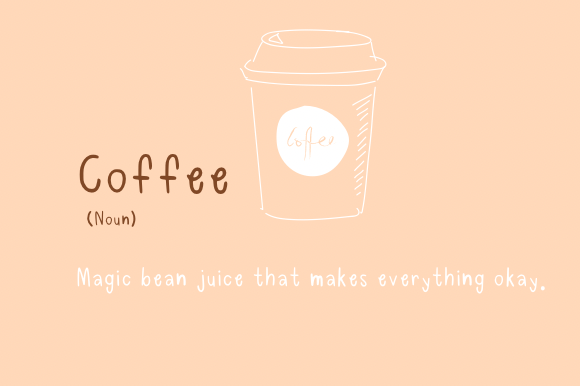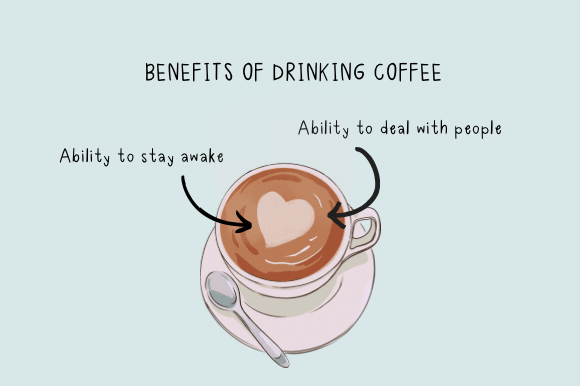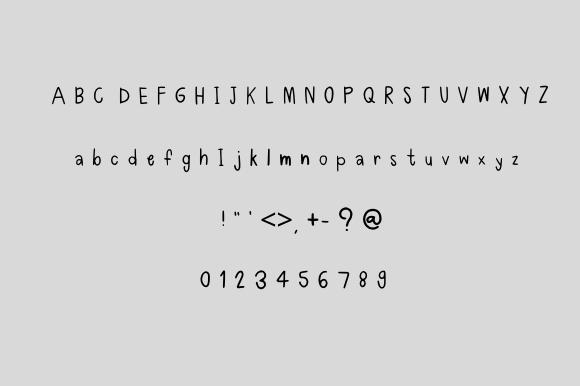
Coffee Lover Font: The Perfect Companion for Designers and Crafters
Are you a coffee lover, a designer, or a crafter looking for a font that can add a personal touch to your projects? Look no further than the Coffee Lover Font! This adorable handwritten font is perfect for a wide range of applications, from crafts and digital design to presentations and greeting cards. In this article, we’ll dive into the world of Coffee Lover Font and explore its features, benefits, and uses.
What is Coffee Lover Font?
Coffee Lover Font is a cute and friendly handwritten font designed to bring a touch of warmth and personality to your projects. Its playful and approachable style makes it perfect for designers, crafters, and anyone looking to add a personal touch to their work. Whether you’re creating a digital design, a handmade craft, or a presentation, Coffee Lover Font is sure to become your go-to font.
Features of Coffee Lover Font
Coffee Lover Font boasts a range of features that make it an excellent choice for designers and crafters. Some of its key features include:
- Handwritten style: Coffee Lover Font has a beautiful, handwritten style that’s perfect for adding a personal touch to your projects.
- Cute and friendly: The font’s playful and approachable style makes it perfect for a wide range of applications, from crafts to digital design.
- Versatile: Coffee Lover Font can be used for a variety of projects, including crafts, digital design, presentations, and greeting cards.
- Easy to read: The font is clear and easy to read, making it perfect for use in body text or headings.
Benefits of Using Coffee Lover Font
So why should you choose Coffee Lover Font for your next project? Here are just a few benefits of using this amazing font:
- Adds a personal touch: Coffee Lover Font’s handwritten style adds a personal touch to your projects, making them stand out from the crowd.
- Increases engagement: The font’s playful and approachable style can help increase engagement with your audience, whether you’re creating a digital design or a handmade craft.
- Versatile: Coffee Lover Font can be used for a wide range of applications, making it a great addition to your font library.
Uses for Coffee Lover Font
Coffee Lover Font is a versatile font that can be used for a wide range of applications. Here are just a few ideas to get you started:
- Crafts: Use Coffee Lover Font to add a personal touch to your handmade crafts, such as scrapbooking, card making, and journaling.
- Digital design: The font is perfect for use in digital design, including social media graphics, blog posts, and website headers.
- Presentations: Add a touch of personality to your presentations with Coffee Lover Font, perfect for use in titles, headings, and body text.
- Greeting cards: Use Coffee Lover Font to create beautiful, handmade greeting cards for any occasion.
Tips for Using Coffee Lover Font
Here are a few tips for getting the most out of Coffee Lover Font:
- Experiment with different sizes: Coffee Lover Font looks great in a variety of sizes, from small body text to large headings.
- Pair with other fonts: Try pairing Coffee Lover Font with other fonts to create a unique and interesting look.
- Use in combination with images: The font looks great when used in combination with images, making it perfect for use in digital design and crafts.
| Font Name | Coffee Lover Font |
| Author | PauliinaPrattDesign |
Coffee Lover Font is a versatile and adorable handwritten font that’s perfect for designers, crafters, and anyone looking to add a personal touch to their projects. With its playful and approachable style, it’s sure to become your go-to font for a wide range of applications. Whether you’re creating a digital design, a handmade craft, or a presentation, Coffee Lover Font is the perfect choice. So why not give it a try and see the difference it can make in your next project?